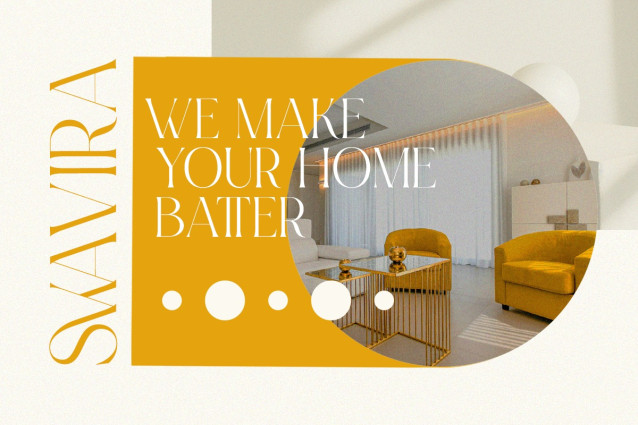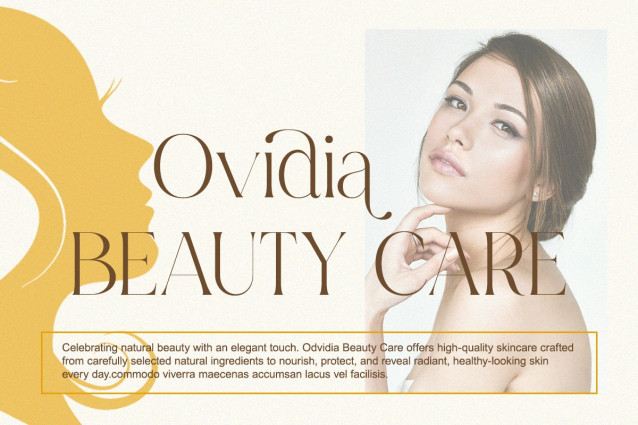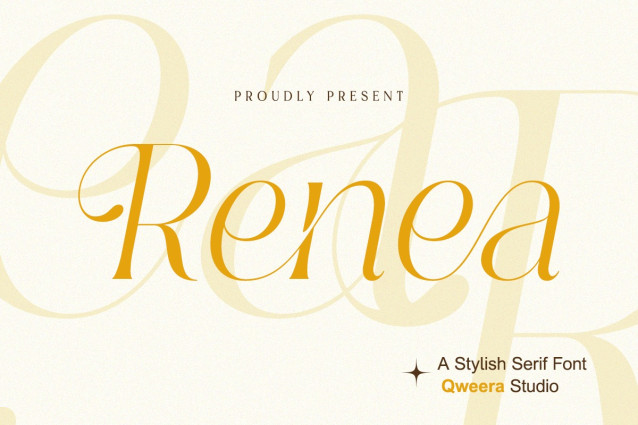
Renea Font
Renea Font is a stylish serif typeface with a refined sense of modernity and elegance. Each curve and serif is crafted to reflect luxury and balance, making it perfect for logos, packaging, magazine covers, and fashion branding. Renea speaks softly yet confidently — ideal for projects that need a touch of grace and high-end design.